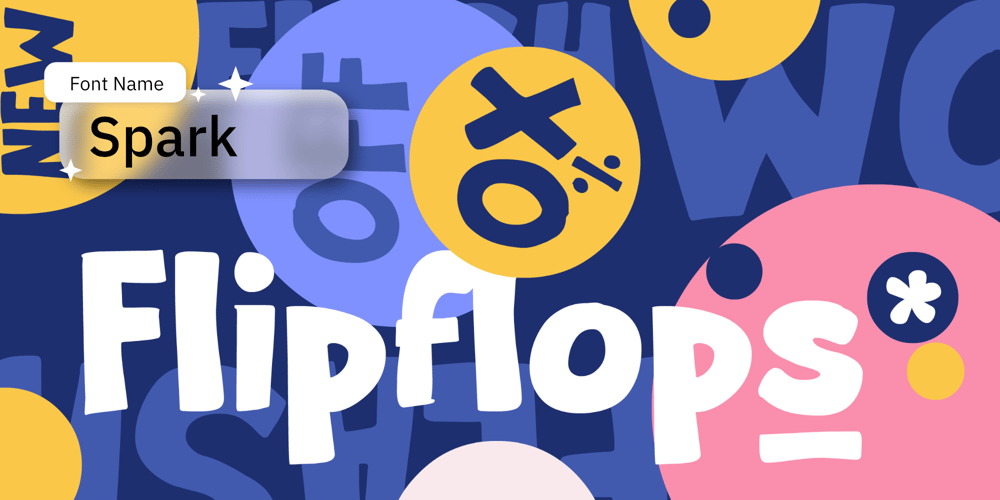
Spark
Spark font
Spark Font Family was designed by Wahyu Eka Prasetya, Afiat Sukmaraga and published by Hati. Spark contains 1 styles and family package options. Imagine using this font in contexts where warmth and friendliness are essential, whether it’s a casual invitation, a heartfelt message, or a playful advertisement. It embodies the spirit of youthfulness without sacrificing readability, making it versatile for both digital and print mediums.